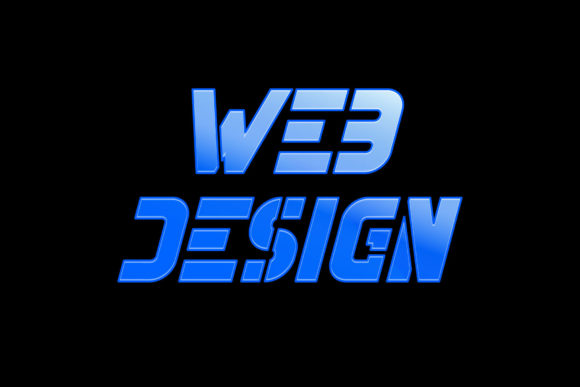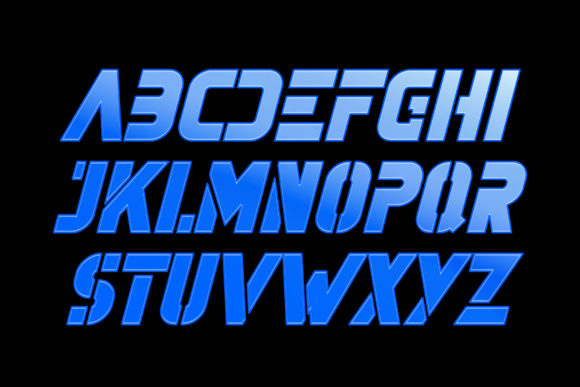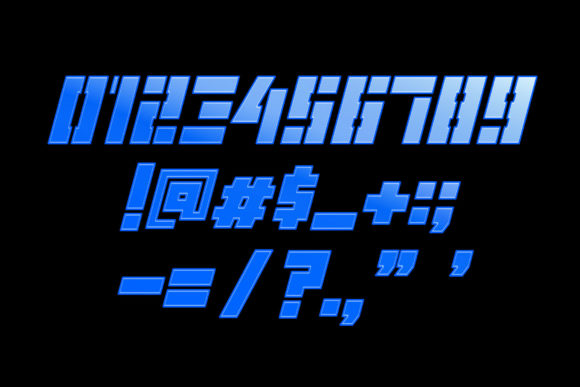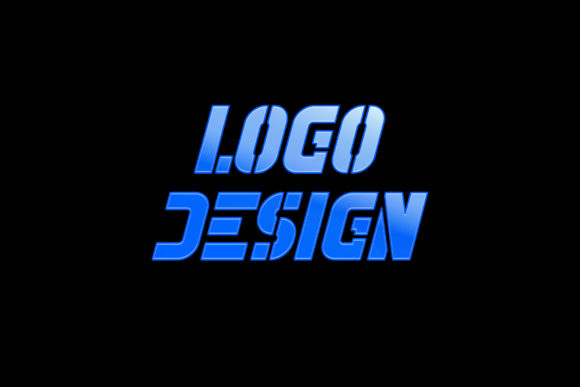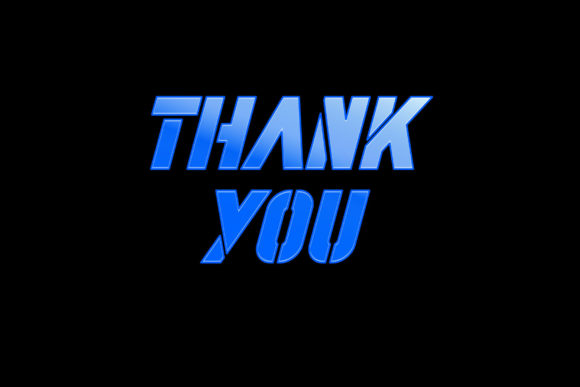
The Power of Brand Font: Elevate Your Designs with Bold and Thick Lettering
When it comes to creating visually stunning designs, typography plays a crucial role. A well-chosen font can make all the difference in conveying your message, setting the tone, and capturing the attention of your audience. In this article, we’ll dive into the world of Brand Font, a bold and thick lettered display font that’s perfect for designers and crafters looking to add a touch of personality to their work.
What is Brand Font?
Brand Font is a display font designed to make a statement. Its bold and thick lettering makes it ideal for headlines, titles, and any other design element where you want to grab attention. With its clean and modern aesthetic, this font is versatile enough to be used across various design projects, from branding and advertising to packaging and digital media.
Key Features of Brand Font
- Bold and Thick Lettering: The font’s bold and thick lettering makes it perfect for creating eye-catching headlines and titles.
- Clean and Modern Aesthetic: The font’s clean and modern design ensures it will fit seamlessly into any design project.
- Endless Variations: With Brand Font, you can experiment with endless variations to create unique and personalized designs.
- Easy to Read: Despite its bold nature, the font remains easy to read, making it perfect for designs where clarity is crucial.
Why Choose Brand Font?
With so many fonts available, why choose Brand Font? Here are a few compelling reasons:
- Uniqueness: Brand Font offers a unique blend of boldness and elegance, setting it apart from more traditional fonts.
- Versatility: This font can be used across a wide range of design projects, from digital media to print materials.
- Easy to Pair: Brand Font pairs well with a variety of other fonts, making it easy to create harmonious and visually appealing designs.
How to Use Brand Font in Your Designs
Using Brand Font in your designs is straightforward. Here are a few tips to get you started:
- Headlines and Titles: Use Brand Font for headlines and titles to create instant impact.
- Branding and Identity: Incorporate Brand Font into your branding and identity projects to add a touch of personality.
- Digital Media: Use Brand Font in your digital media projects, such as social media graphics, website headers, and more.
- Experiment with Variations: Don’t be afraid to experiment with different variations of Brand Font to create unique designs.
Tips for Pairing Brand Font with Other Fonts
Pairing Brand Font with other fonts can create visually stunning designs. Here are a few tips:
- Contrast with Scripts: Pair Brand Font with script fonts for a beautiful contrast.
- Match with Sans Serifs: Pair Brand Font with sans serif fonts for a clean and modern look.
- Experiment with Serif Fonts: Don’t be afraid to experiment with pairing Brand Font with serif fonts for a unique look.
Brand Font is a powerful tool for designers and crafters looking to add a touch of personality to their work. With its bold and thick lettering, clean and modern aesthetic, and endless variations, this font is perfect for a wide range of design projects. By incorporating Brand Font into your designs, you can create visually stunning and effective designs that capture the attention of your audience.